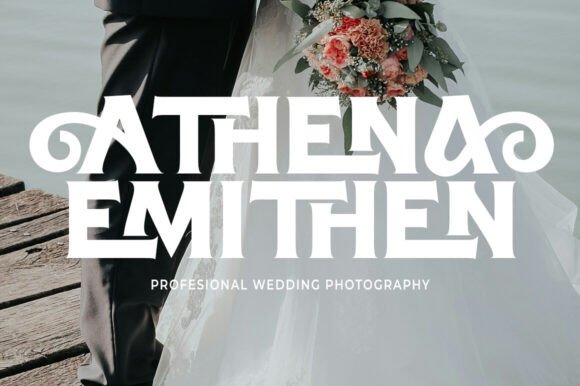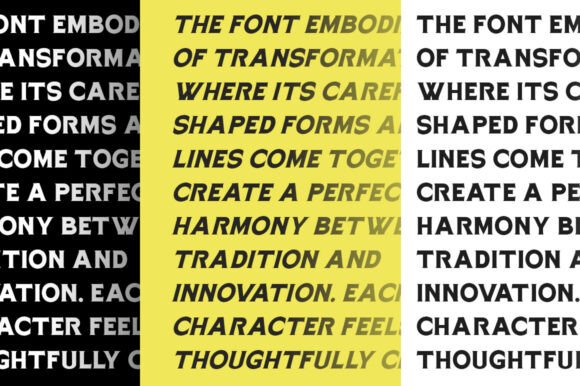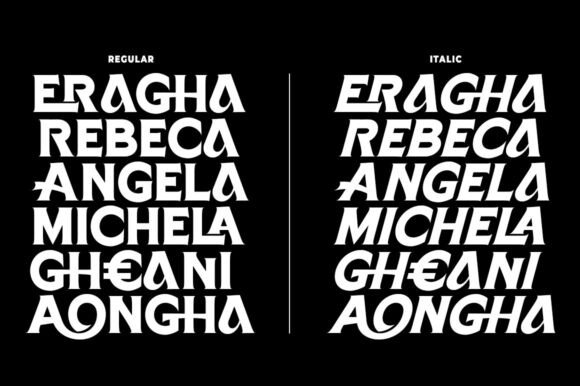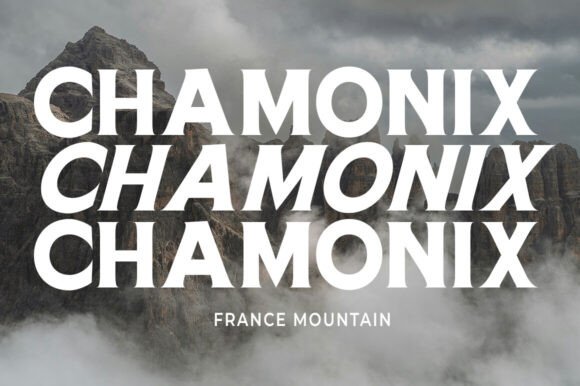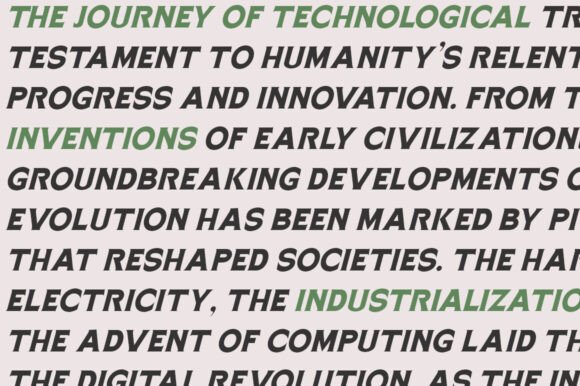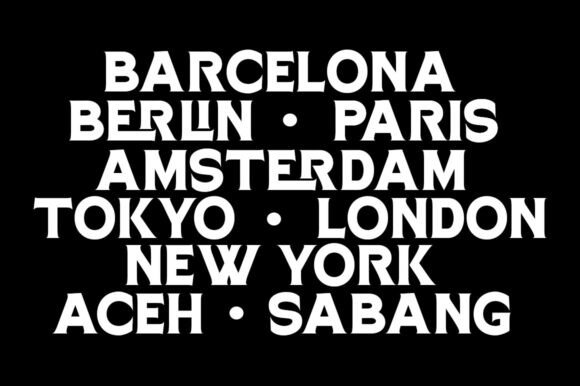
Unlock the Groovy Charm of Your Designs with Agheria Duo Font
You know that moment when you’re brainstorming ideas for a new project and you stumble upon the perfect font? It’s like the whole design just clicks into place, and you can’t wait to share it with the world. For designers, finding that perfect font can make all the difference between a good design and a great one.
Enter Agheria Duo Font, a retro bold font that’s sure to add a unique touch to your projects. This stylish font is perfect for logos, posters, social media, and branding, and its modern charm will make your designs stand out from the crowd. With its range of alternates and ligatures, Agheria Duo Font offers endless possibilities for your designs, allowing you to express your unique vision and style.
Agheria Duo Font Key Features
- Unique Characteristics: Designed with a modern and elegant feel, featuring a unique blend of sharp lines and subtle curves, making it suitable for various design applications
Agheria Duo Font Review
I recently had the chance to work with the Agheria Duo Font, and I must say it’s a unique and interesting typeface. Here are my thoughts on what works well and what could be improved.
- Legibility: The Agheria Duo Font is highly legible, even at smaller font sizes. This makes it perfect for body text and other applications where readability is crucial.
- Contrast: The font has a nice contrast between the bold and regular weights, making it easy to distinguish between headings and body text.
- Stylish: The Agheria Duo Font has a distinctive, stylish look that’s perfect for creative projects and branding.
- Character set: The font’s character set is limited, which can make it difficult to use for languages that require a wide range of characters.
- Italic: The font’s italic weight is not as polished as the regular and bold weights, which can make it stand out in a negative way.
- Kerning: The font’s kerning could be improved, particularly between certain letter combinations.
Overall, the Agheria Duo Font is a solid choice for designers who want a unique, stylish typeface for their projects. While it has some limitations, its legibility, contrast, and stylish look make it a great option for creative applications.
The Agheria Duo Font is ideal for:
- Restaurant menus and branding.
- Any project that requires a elegant and sophisticated look.
To get the most out of the Agheria Duo Font, be sure to:
- Use it in conjunction with other elegant fonts for a cohesive look.
- Experiment
Monserrat is a sans-serif font that is clean, modern, and highly legible. It is perfect for use in digital products, logos, and headlines. Montserrat is similar to Agheria Duo Font in its modern aesthetic, but it has a more geometric and industrial feel.
Lato is a sans-serif font that is highly versatile and suitable for both print and digital use. It is perfect for use in body text, headings, and titles. Lato is similar to Agheria Duo Font in its clean and modern design, but it has a more rounded and friendly feel.
Open Sans is a sans-serif font that is highly legible and versatile. It is perfect for use in digital products, body text, and headings. Open Sans is similar to Agheria Duo Font in its modern design, but it has a more neutral and calm feel.
Inter is a sans-serif font that is highly versatile and suitable for both print and digital use. It is perfect for use in body text, headings, and titles. Inter is similar to Agheria Duo Font in its modern design, but it has a more geometric and sophisticated feel.
Unleashing Creativity with Agheria Duo Font
Create a charming wooden sign that combines the elegance of Agheria Duo Font with the rustic charm of natural wood.
Q: Are there any specific font pairing recommendations for the Agheria Duo Font?
Yes, the Agheria Duo Font is designed to pair well with a variety of other fonts. Some recommended pairings include serif fonts like Merriweather or Georgia, and sans-serif fonts like Open Sans or Lato. You can also experiment with pairing the Agheria Duo Font with other script or display fonts to create unique and interesting combinations.